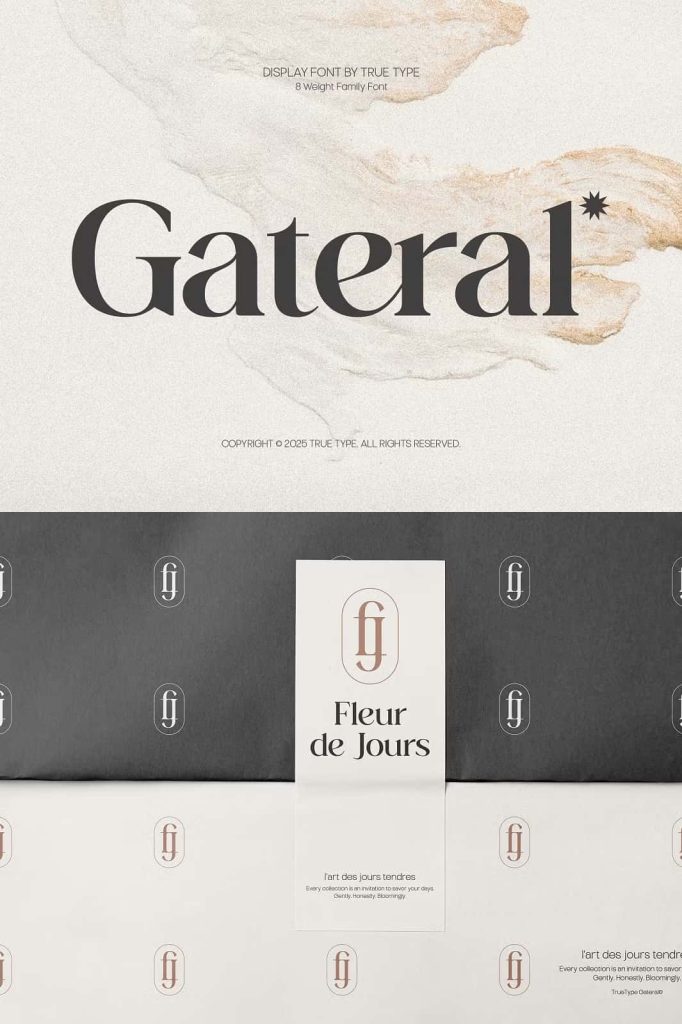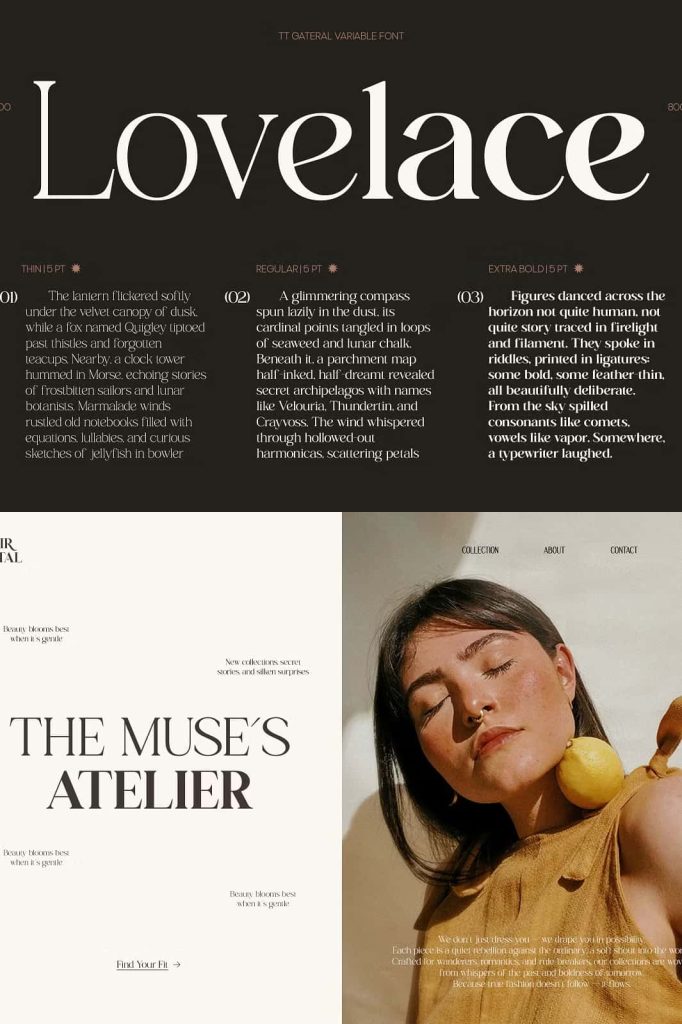
TT Gateral Serif Typeface – Elegant, Balanced, and Versatile Typography for Modern Design
TT Gateral is a sophisticated serif typeface created to deliver exceptional clarity, visual balance, and timeless elegance. Designed with meticulous attention to detail, this font combines clean structural forms with subtle contrast, making it a highly versatile choice for a wide variety of creative and professional projects. Whether you are building a strong brand identity, designing editorial layouts, creating product packaging, or developing digital content, TT Gateral provides the flexibility and refinement needed to elevate your work.
Its carefully crafted letterforms offer a professional appearance without feeling overly formal. The result is a serif typeface that communicates confidence, readability, and sophistication while remaining approachable and modern. TT Gateral seamlessly adapts to both traditional and contemporary design environments, making it an essential asset for designers, marketers, publishers, and creative professionals.
Designed for Clarity and Readability
One of the defining characteristics of TT Gateral is its exceptional readability. Every character has been thoughtfully designed to maintain clarity across different sizes and applications. The font’s balanced proportions ensure that text remains legible whether it appears in large headlines, detailed body copy, or supporting content.
The clean structure minimizes visual distractions, allowing readers to focus on the message itself. This makes TT Gateral particularly effective for editorial projects, corporate communications, websites, magazines, and publications where readability plays a critical role in the overall user experience.
Balanced Typography with Timeless Appeal
TT Gateral achieves a harmonious balance between classic serif traditions and modern design principles. The subtle contrast within its strokes creates visual interest while maintaining a polished and professional appearance. This balance enables the typeface to perform equally well in luxury branding projects and contemporary digital environments.
Its timeless aesthetic helps businesses and designers create lasting impressions without relying on temporary design trends. As a result, TT Gateral remains relevant across industries and design styles, making it a valuable long-term investment for creative projects.
Perfect for Professional Branding
Brand identity requires typography that communicates trust, quality, and consistency. TT Gateral provides these qualities through its elegant design and versatile character set. The typeface works exceptionally well for logos, brand guidelines, visual identities, marketing materials, and corporate presentations.
Its refined appearance helps businesses establish a premium image while maintaining a clear and approachable personality. Whether you are developing branding for a startup, luxury company, creative agency, or established enterprise, TT Gateral offers the sophistication needed to strengthen brand recognition.
Logo Design Applications
The balanced proportions and elegant serif details make TT Gateral an excellent choice for logo creation. Designers can use the font to build memorable wordmarks and visual identities that convey professionalism, reliability, and distinction.
Corporate Identity Projects
TT Gateral supports cohesive branding systems by maintaining consistency across multiple touchpoints, including business cards, brochures, websites, packaging, and promotional materials.
Enhance Editorial and Publishing Projects
Editorial design demands typography that can handle large amounts of text while maintaining visual appeal. TT Gateral excels in this area by providing comfortable readability combined with sophisticated styling. Its carefully balanced letterforms help create attractive layouts for magazines, books, newspapers, reports, and journals.
Designers can confidently use TT Gateral for headlines, subheadings, pull quotes, and body text. The font creates a smooth reading experience while adding a sense of authority and professionalism to every publication.
Ideal for Packaging and Product Design
Product packaging often serves as the first interaction between a brand and its audience. TT Gateral helps products stand out by delivering a premium and refined visual presence. Its elegant serif styling works particularly well for luxury goods, cosmetics, fashion products, gourmet foods, specialty beverages, and high-end retail packaging.
The typeface communicates quality and attention to detail, helping brands create stronger connections with consumers. Whether used for product names, descriptions, or packaging headlines, TT Gateral contributes to a polished and professional presentation.
Optimized for Digital Content
Modern typography must perform effectively across digital platforms. TT Gateral adapts beautifully to websites, mobile applications, social media graphics, online publications, and digital marketing campaigns. Its clean design ensures excellent readability on screens while preserving the elegance expected from a premium serif typeface.
This versatility allows designers to maintain a consistent visual identity across print and digital environments. From website headers and landing pages to online advertisements and content marketing materials, TT Gateral delivers reliable performance in every setting.
Why Choose TT Gateral Serif Typeface?
TT Gateral stands out as a serif typeface that successfully combines clarity, balance, and understated elegance. Its clean structure, refined details, and versatile design make it suitable for a broad range of professional applications. Designers can confidently use the font for branding, editorial layouts, packaging design, marketing materials, and digital content without sacrificing readability or visual appeal.
By choosing TT Gateral, creative professionals gain access to a typeface that supports both functional communication and sophisticated design. Its timeless character ensures lasting relevance, helping brands and publications create meaningful visual experiences that resonate with audiences and reinforce quality at every touchpoint.